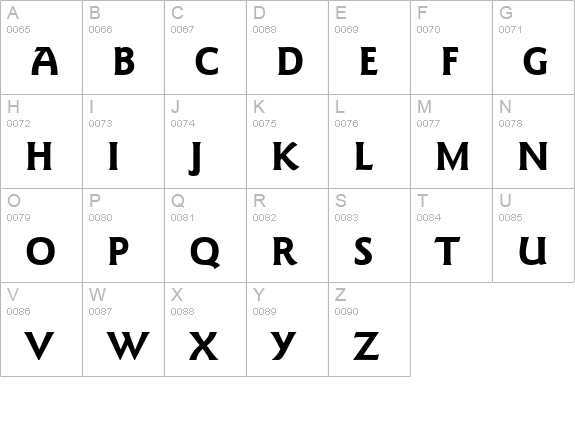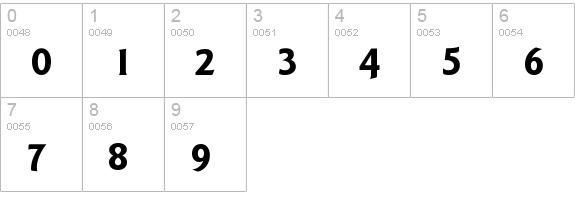
Goudy Sans Bold BT Font Details
Goudy Sans Bold BT is a strong, high-contrast variant in the Goudy typeface family \xE2\x80\x94 well suited to headlines, attention-grabbing titles, and strong calls-to-action.
Goudy Sans Bold BT is a versatile and modern typeface that exudes elegance and sophistication. With its bold and distinctive characters, this font is perfect for creating eye-catching designs that demand attention. The clean lines and balanced proportions make Goudy Sans Bold BT a popular choice for both print and digital projects. What makes Goudy Sans Bold BT even more appealing is that it is available for free download at FontsMarket.com. This means you can access this high-quality font without any cost, making it a valuable addition to your font collection. Whether you are working on branding materials, posters, websites, or any other design project, Goudy Sans Bold BT offers a timeless and polished look that will elevate your work to the next level. Experience the beauty and versatility of Goudy Sans Bold BT today by downloading it for free at FontsMarket.com.